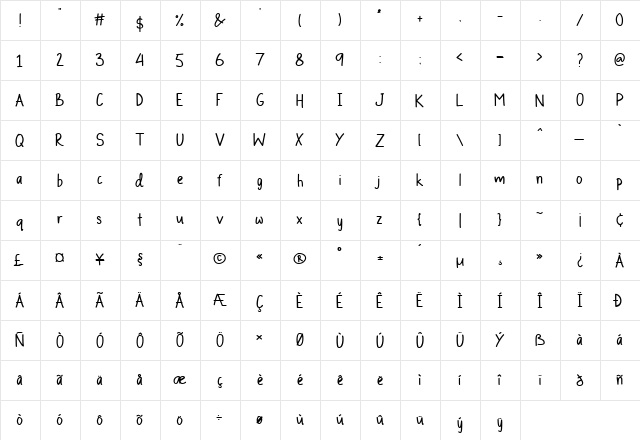
My Wish Regular
Design Context for My Wish Typeface
My Wish is a composed and adaptable typeface that performs quietly and consistently across a wide range of design contexts.